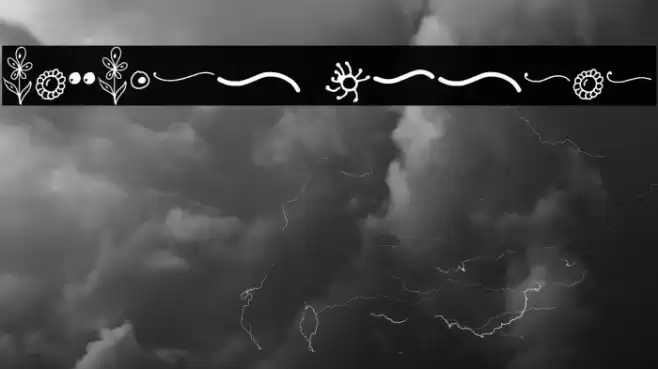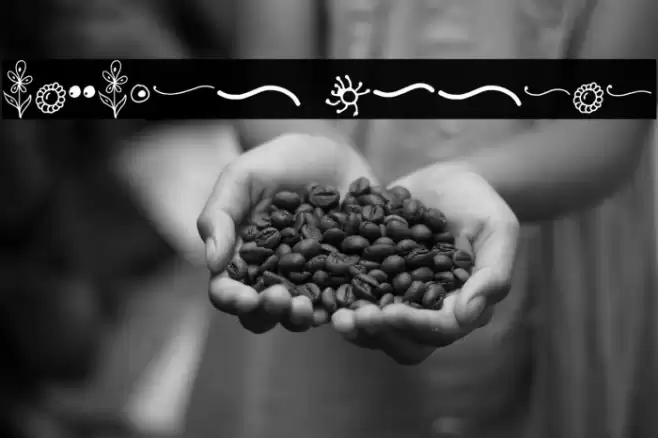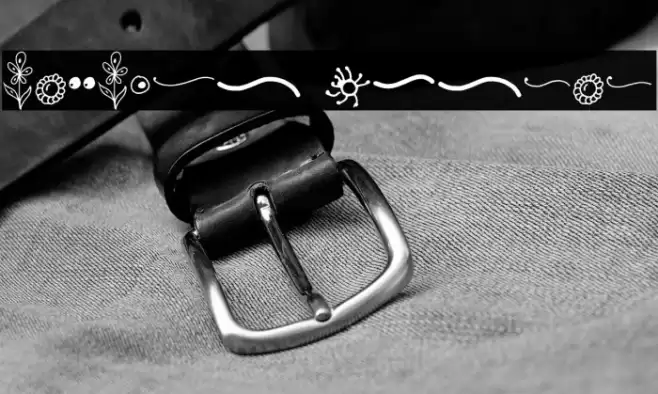
TallTiny Extras Font
TallTiny Extras Description
A playful and whimsical collection of hand-drawn doodle extras, including butterflies, insects, flowers, leaves, dots, and wavy lines. The illustrations have an informal, sketchy style with varying stroke thickness and a lighthearted, organic feel.
Whimsical hand-drawn doodle extras with a playful, sketchy style from Dingbats fonts.
- Proposed Projects: Scrapbooking, children's books, greeting cards, invitations, decorative borders, bullet journals, craft projects.
- Overall Style: Decorative, Whimsical, Hand-drawn
- Use Case: Decorative elements, embellishments, borders, accents.